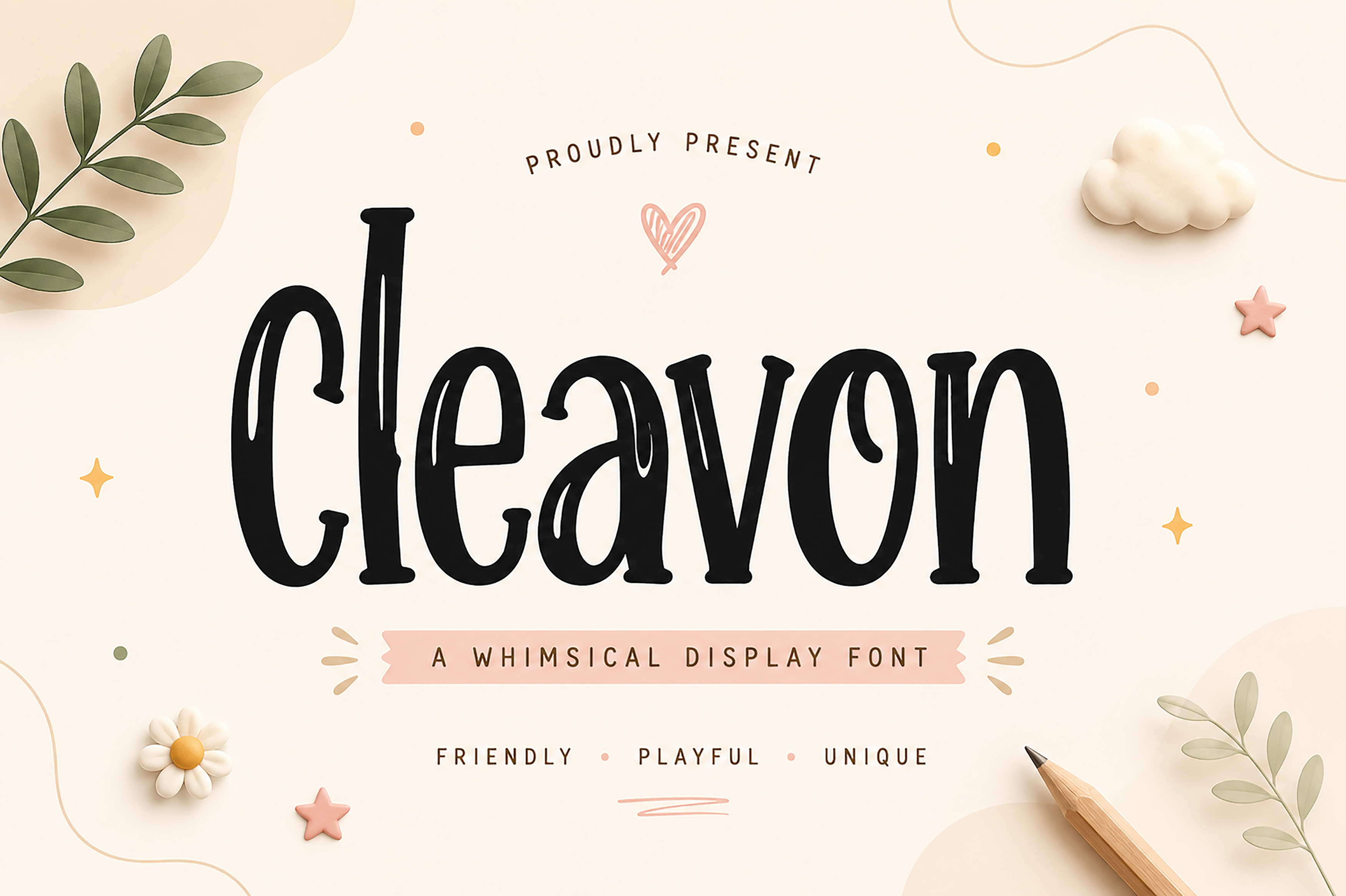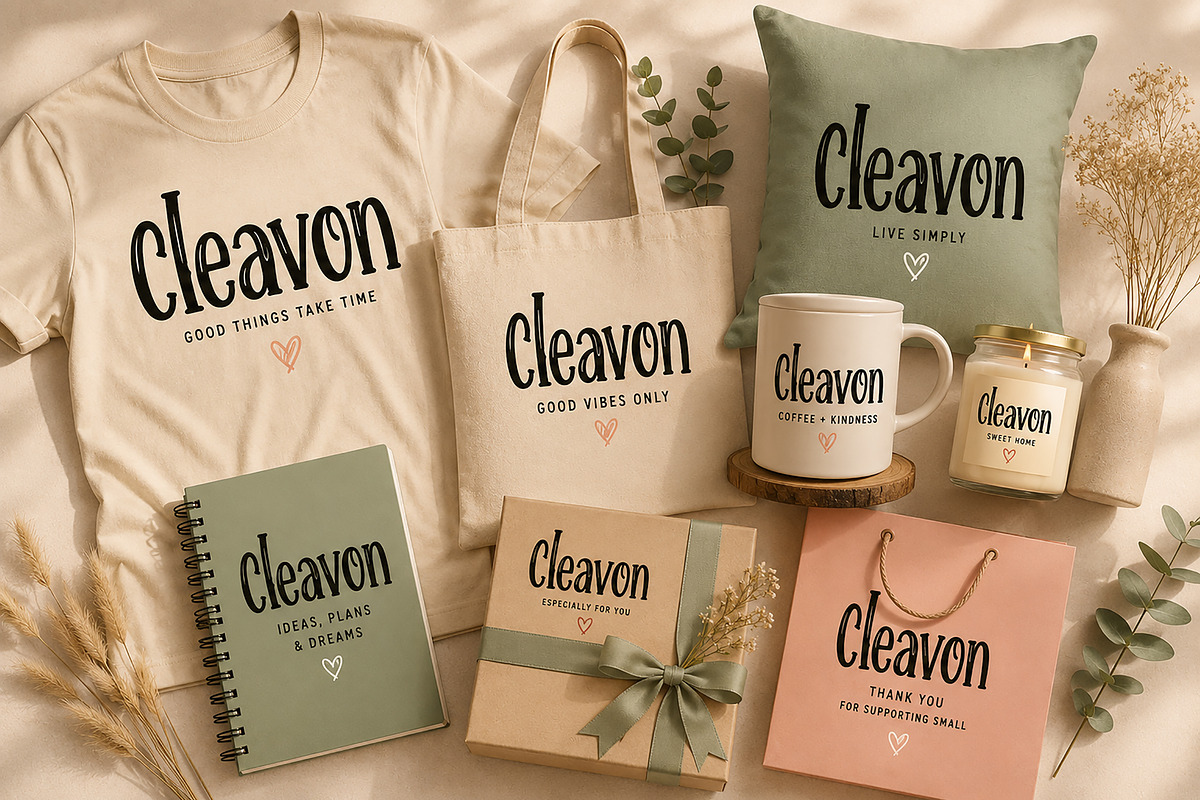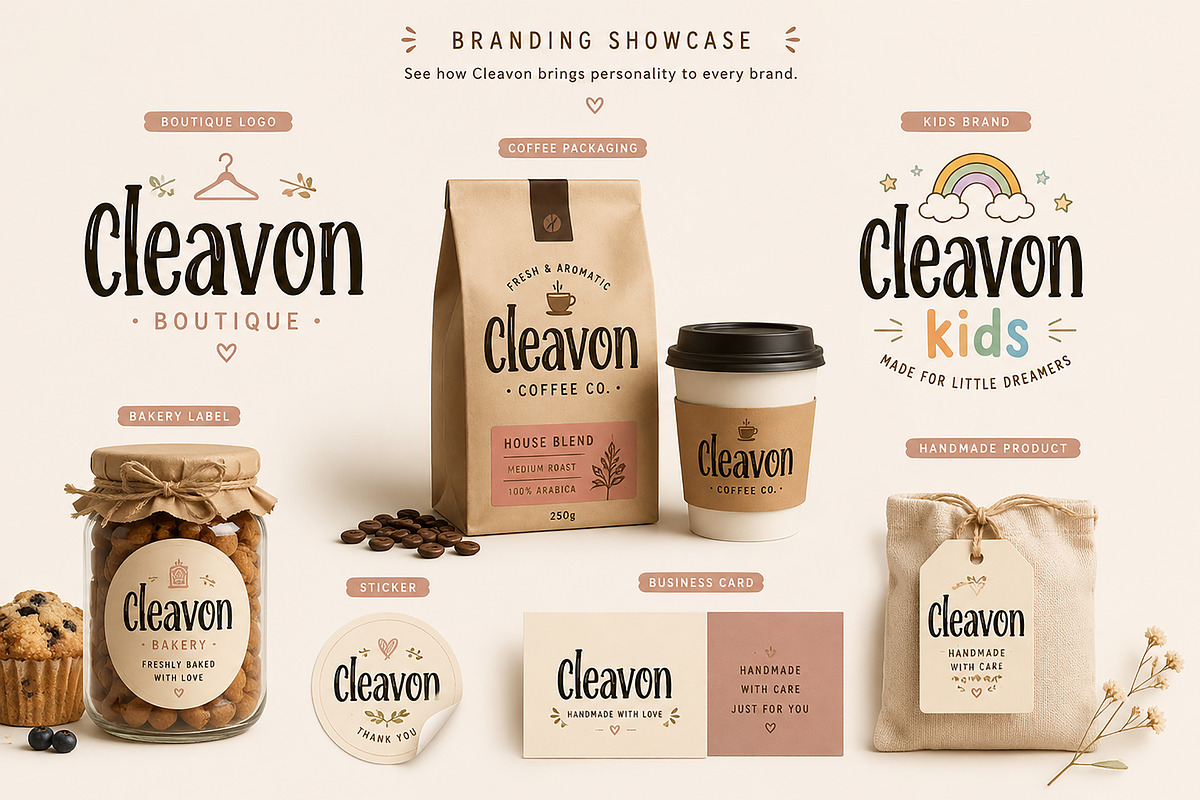
Cleavon whimsical display font
Cleavon is a whimsical display font with a playful personality and handcrafted charm. Featuring tall, quirky letterforms with smooth curves and organic strokes, this font is perfect for adding warmth and creativity to your designs. Its friendly appearance makes it ideal for children's projects, branding, packaging, invitations, social media graphics, greeting cards, posters, book covers, and playful logos.
Whether you're designing for birthdays, baby products, handmade businesses, classroom materials, or cheerful branding, Cleavon brings a fun and memorable touch to every project.
Kids Branding
Children's Books
Greeting Cards
Birthday Invitations
Baby Shower Designs
Product Labels
Posters & Flyers
Quotes & Typography
Stickers
T-Shirts
Craft Projects
Cricut & Silhouette
Printable Designs
Scrapbooking
Educational Materials
Digital Products
Creative Branding
Bring a touch of imagination, happiness, and handcrafted charm to your next creative project with Cleavon!